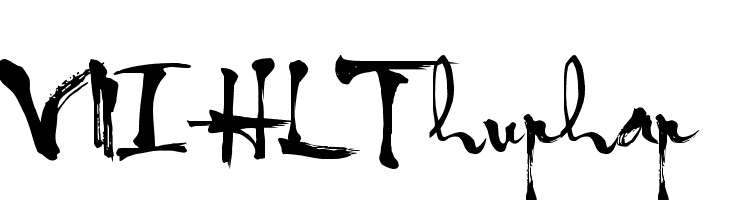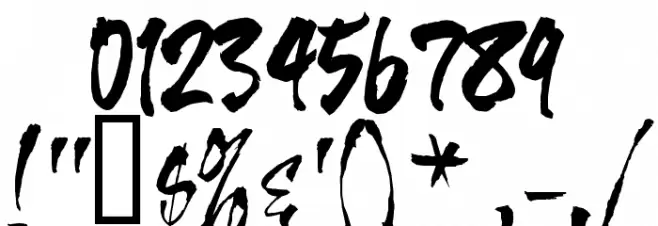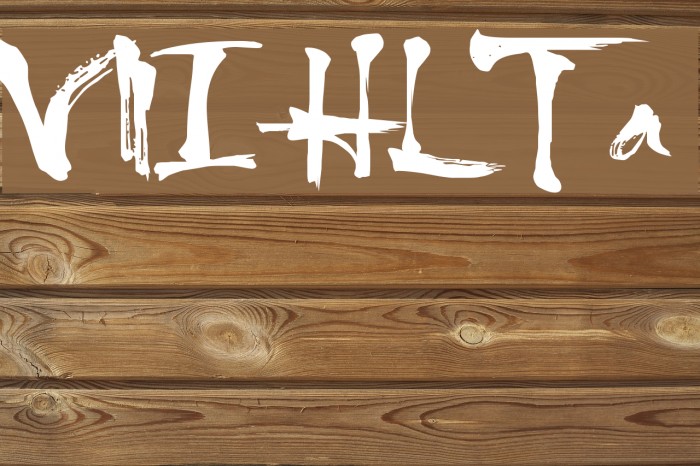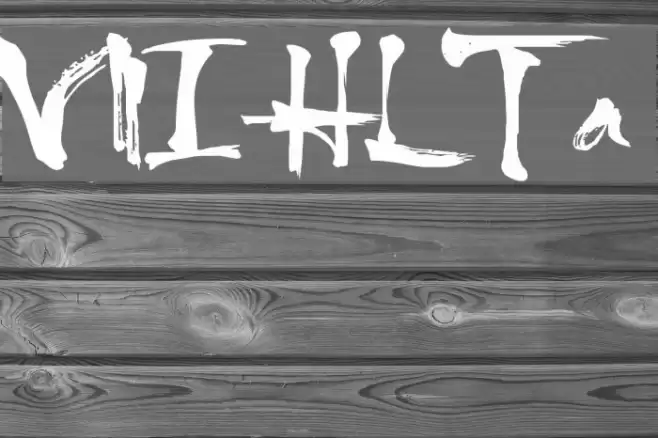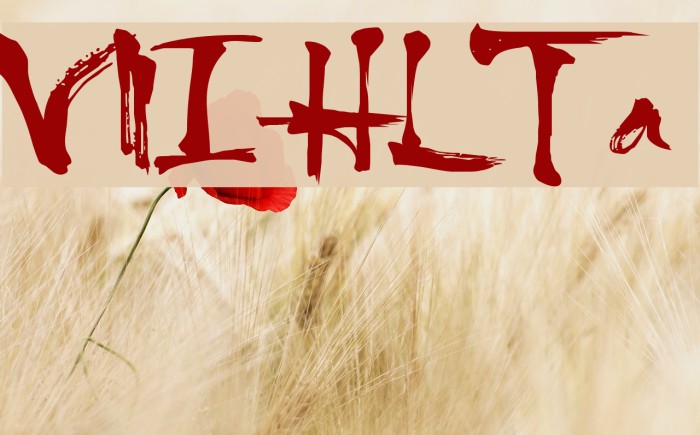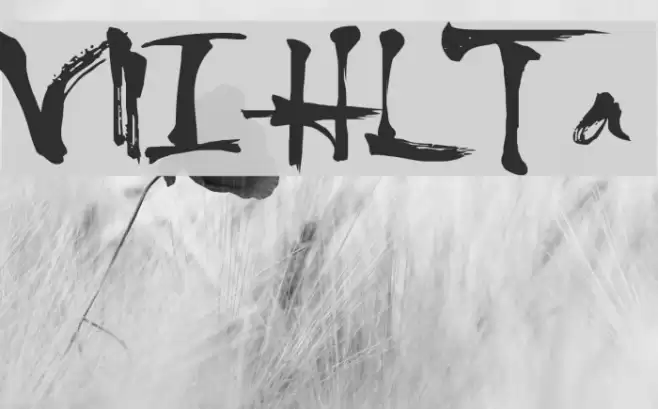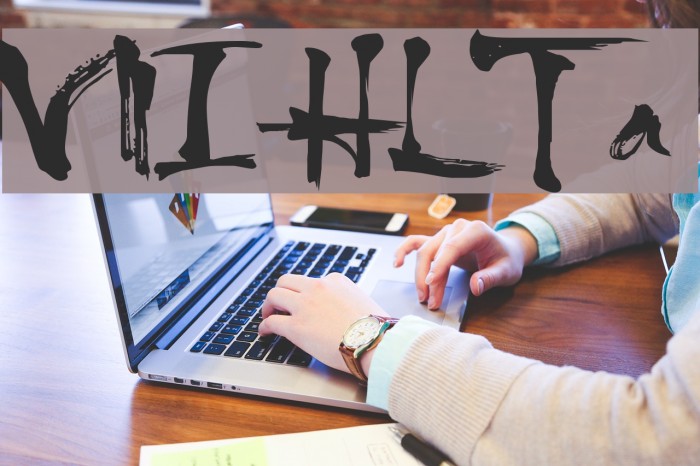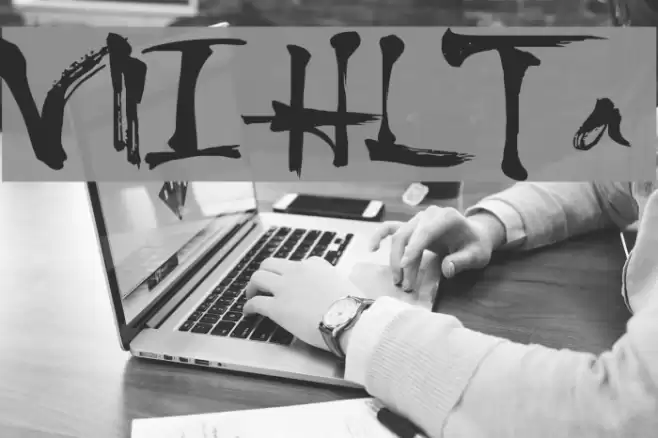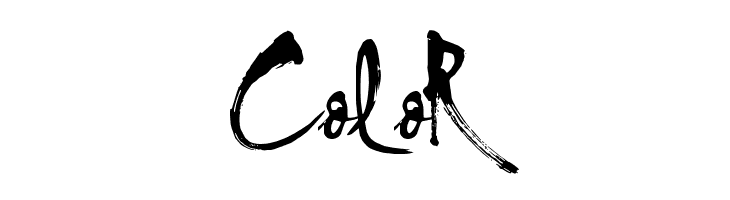
VNI-HLThuphap Font
VNI-HLThuphap Description
This font exhibits a dynamic and expressive style, reminiscent of traditional calligraphy with a modern twist. The strokes are bold and fluid, creating a sense of movement and energy. Each character is uniquely crafted, with varying stroke widths that add depth and character. The uppercase letters are particularly striking, with dramatic flourishes and a sense of grandeur. The lowercase letters maintain a consistent flow, complementing the uppercase with their elegant curves. Numbers and special characters are equally expressive, maintaining the overall aesthetic. This font is perfect for projects that require a touch of artistic flair and sophistication.
| Use Case | Logos, Headlines, Invitations |
| Proposed Projects | Ideal for artistic projects, invitations, branding, and any design requiring a sophisticated, handwritten touch. |